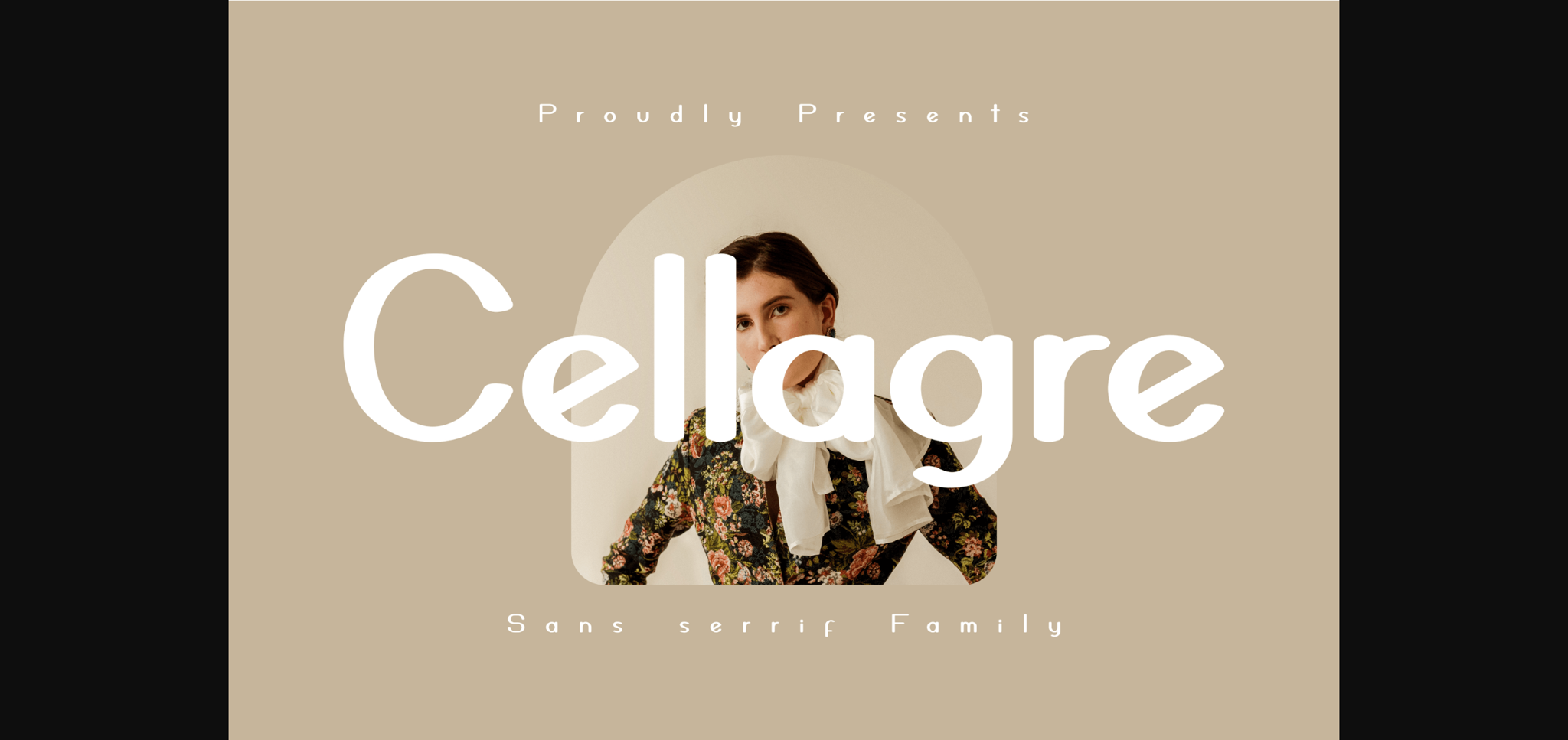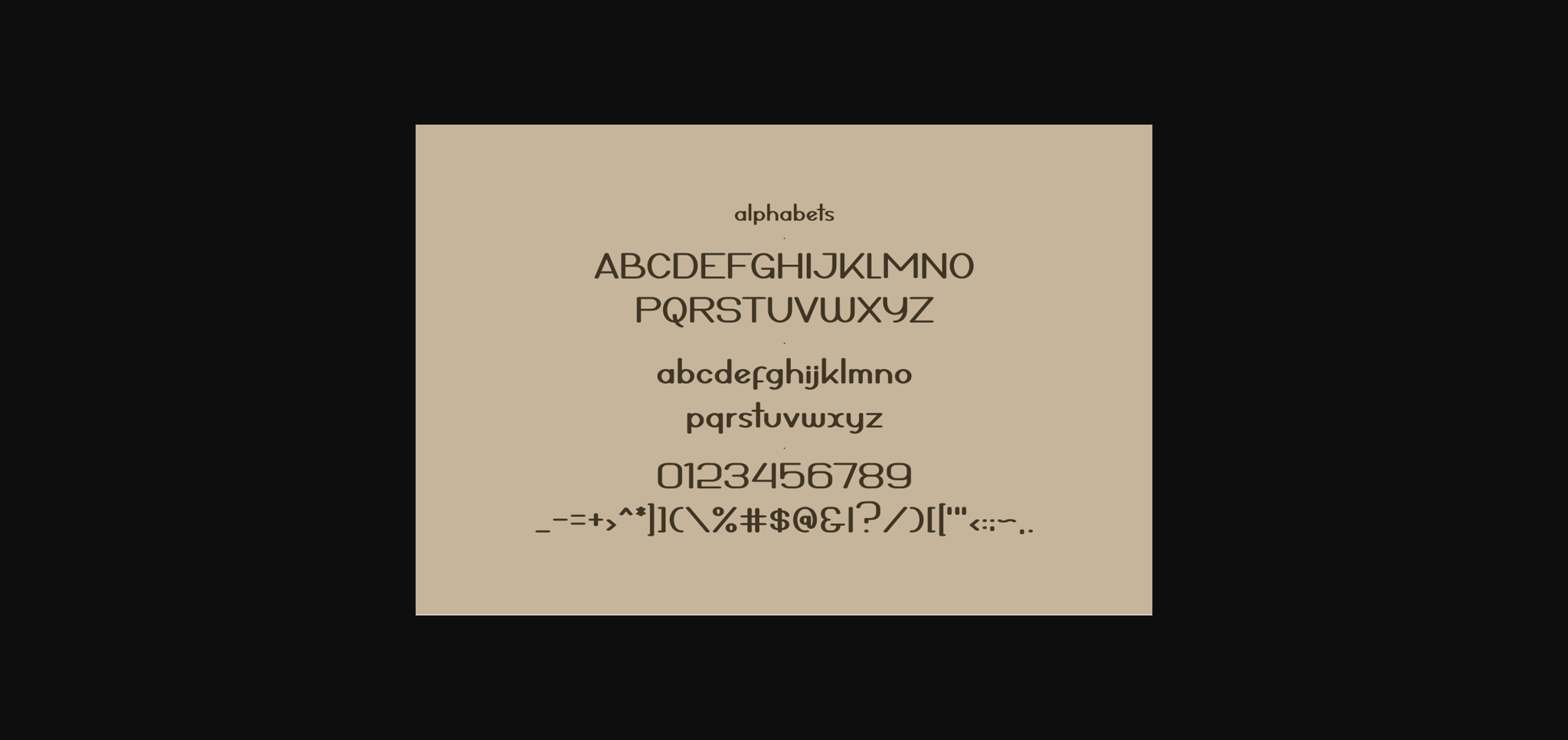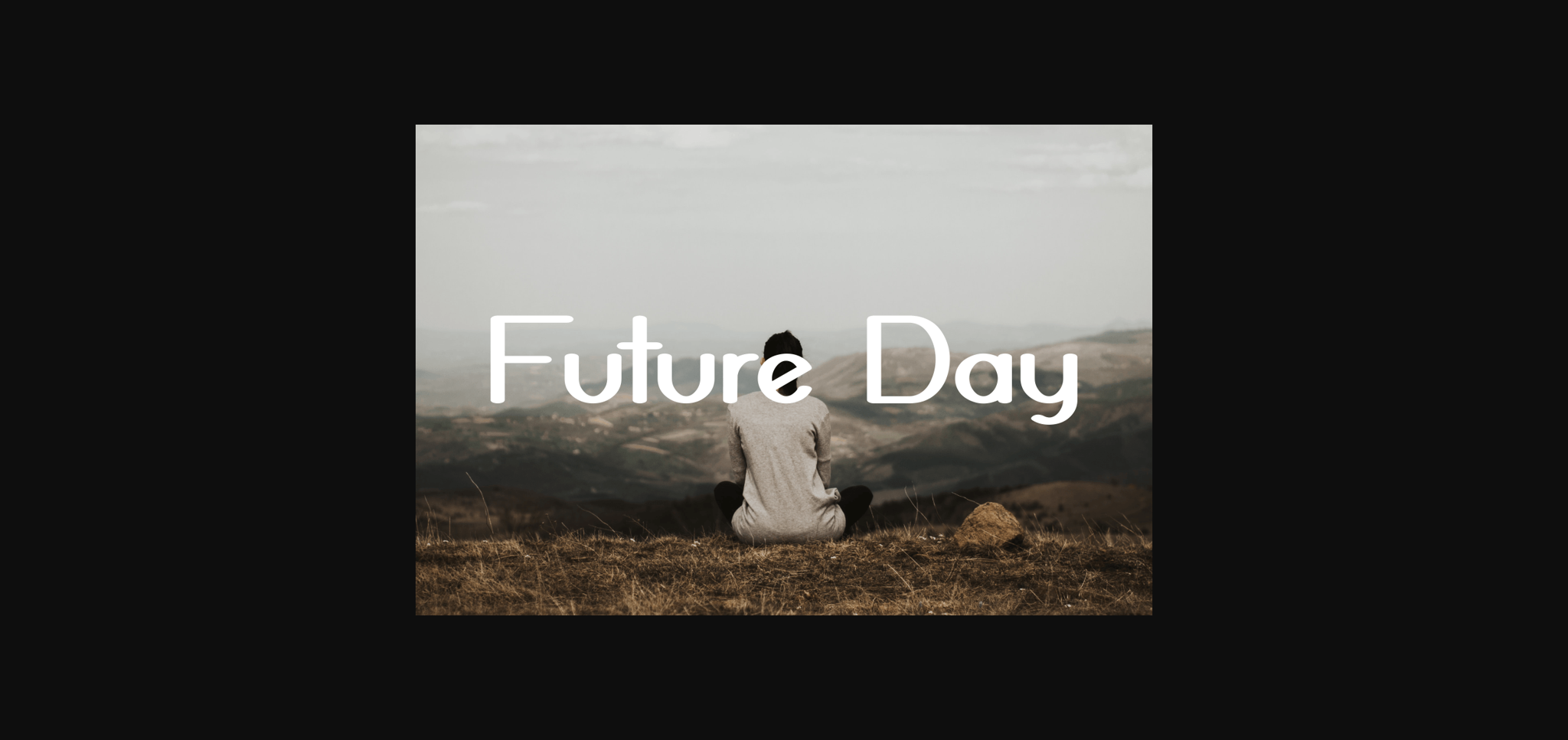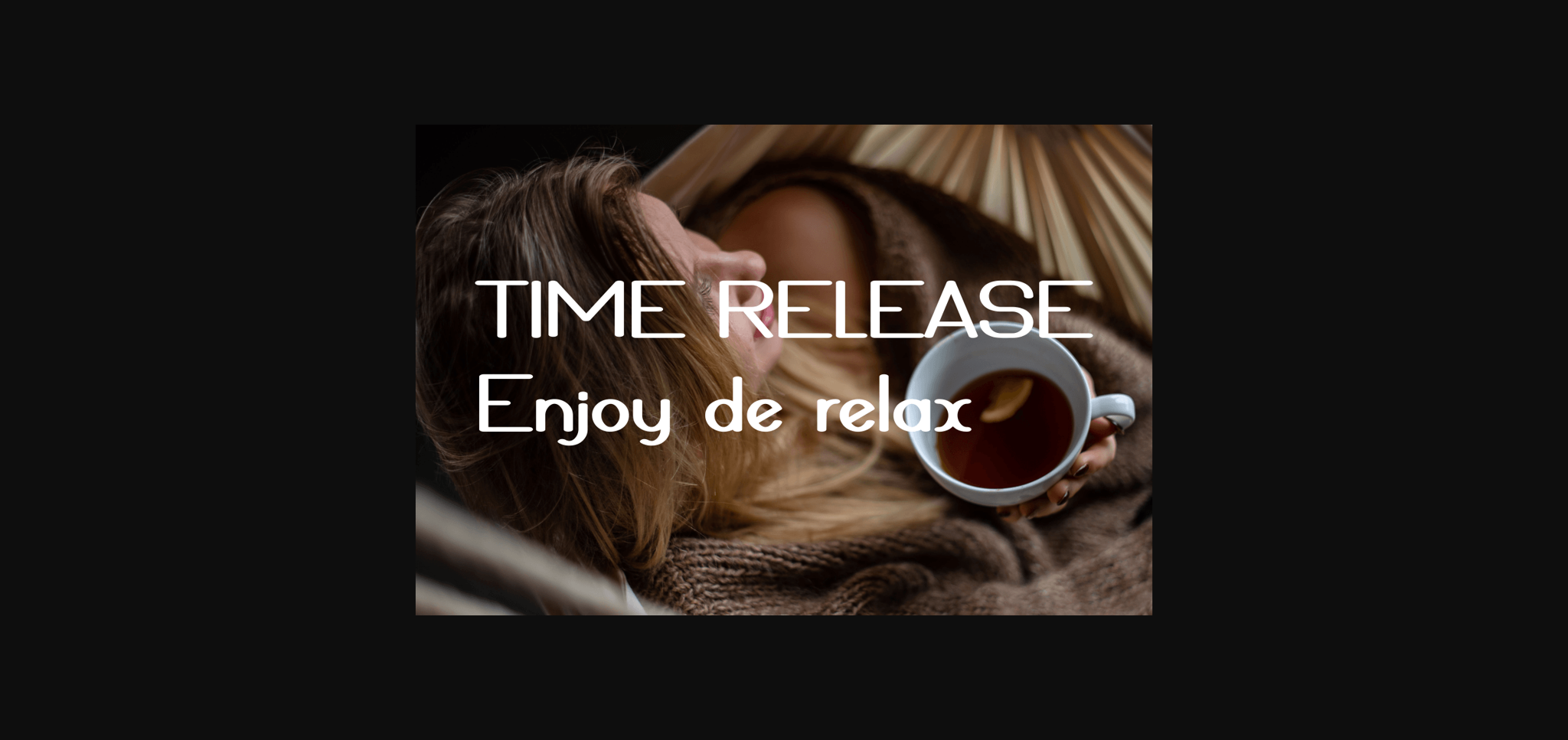
About Cellagre Font
Cellagre is an elegant, classy, and modern sans serif font. It’s a great font for fashion, apparel projects, signatures, album covers, logos, branding, magazines, social media, and advertisements, but also works great for other projects.